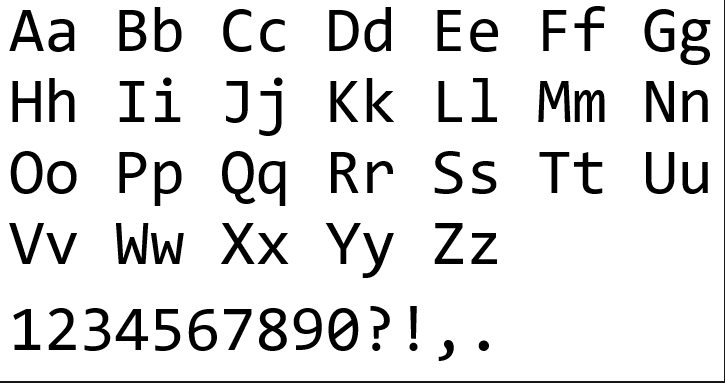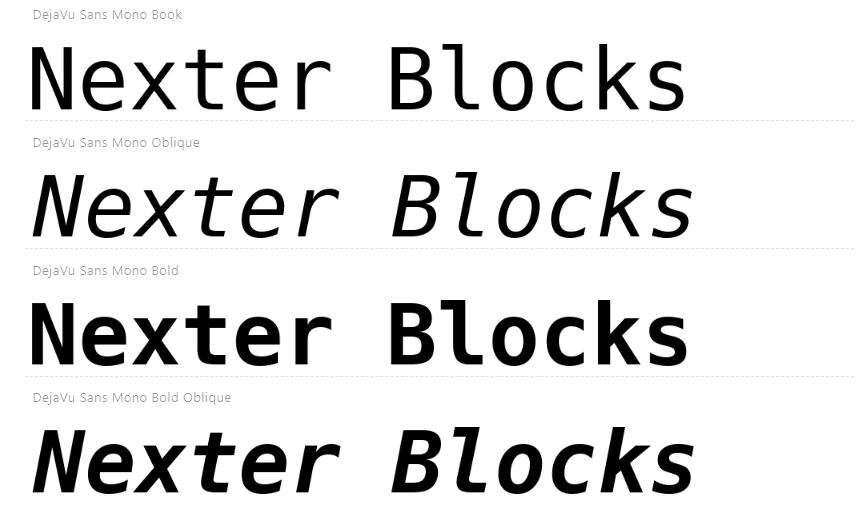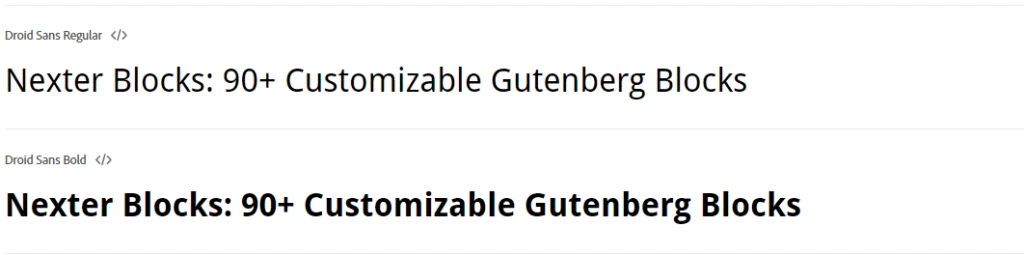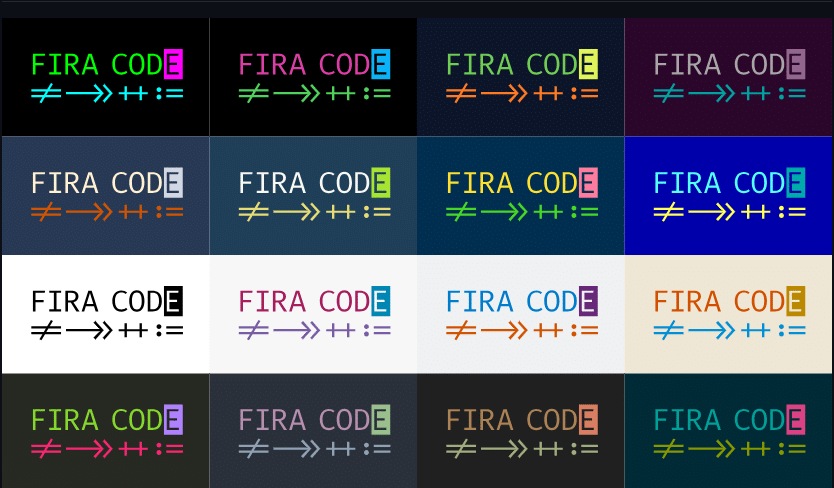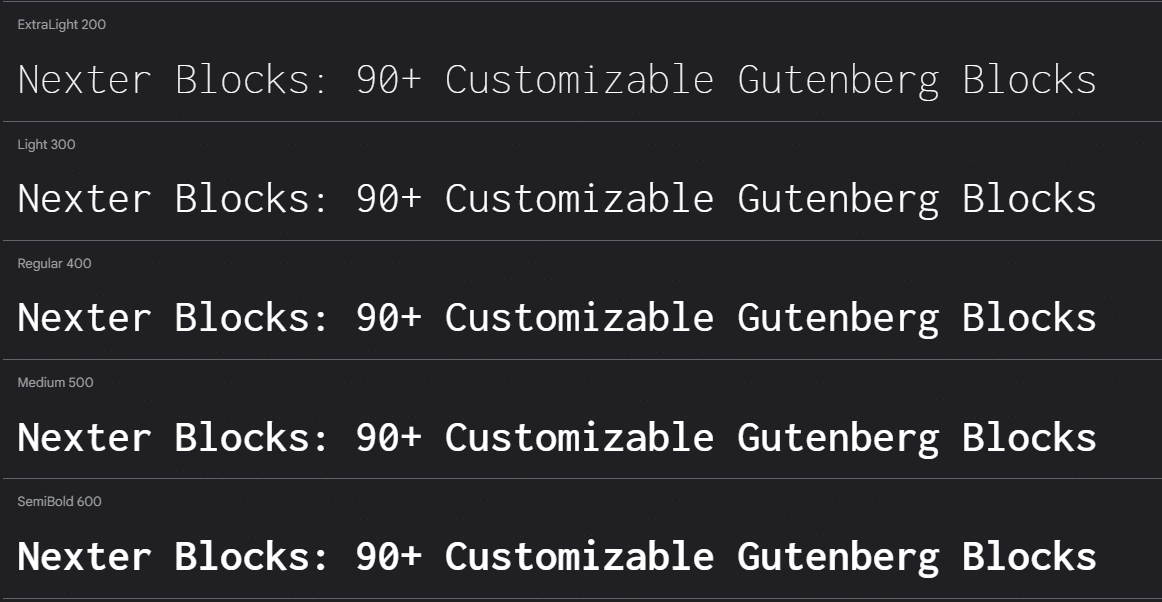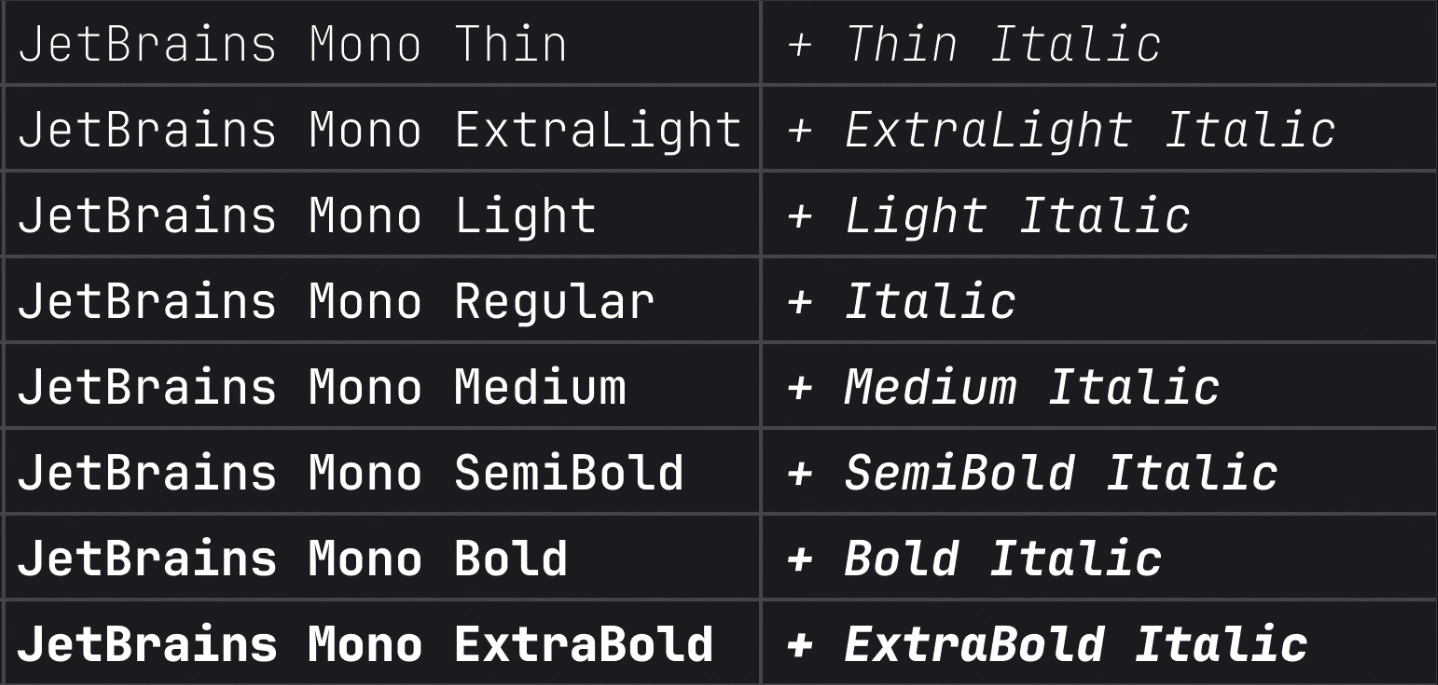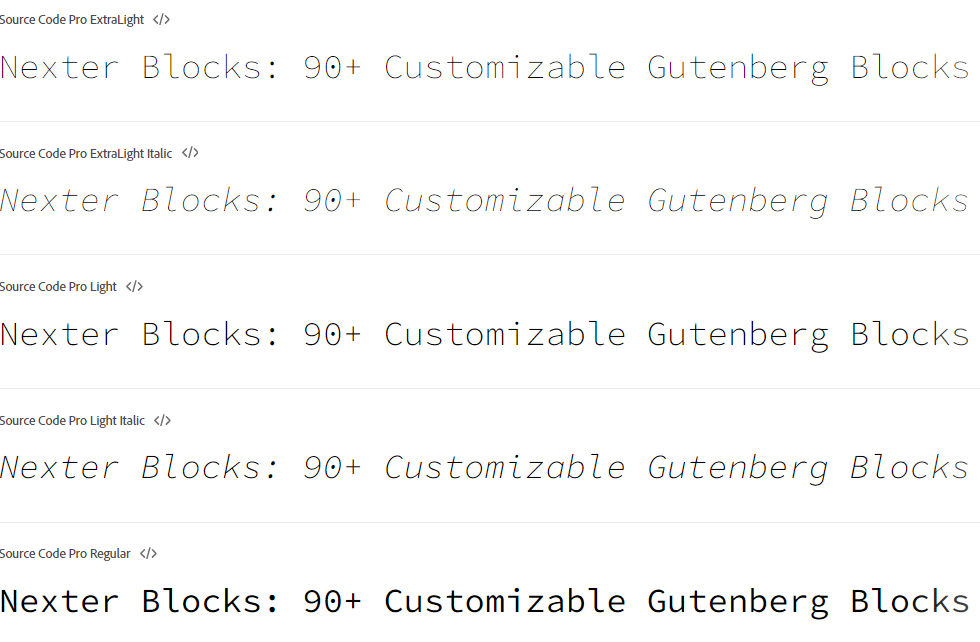
# 10 Best Programming Fonts for Developers [2026]
## Key Takeaways
- Fira Code, a free programming font, features extensive ligature support and is ideal for developers using symbol-heavy languages like JavaScript and Python.
- JetBrains Mono, the default font in JetBrains IDEs, reduces eye fatigue with taller x-heights and increased letter-spacing, supporting 8 weights and extensive ligatures.
- Source Code Pro, Adobe's open-source font, emphasizes character disambiguation without ligatures, making it suitable for Python and Ruby developers.
- Deja Vu Sans Mono offers broad Unicode support and solid character disambiguation, making it a strong choice for Linux developers and terminal users.
- MonoLisa is a premium variable font that allows customization of weight and width, focusing on character disambiguation for professional developers.
The wrong font costs you more than comfort. It slows the time it takes your eye to scan from one line to the next, makes similar characters like `0` and `O` harder to separate, and adds low-level cognitive load to every hour of coding. Multiply that across a full workday and the difference becomes measurable in how quickly you spot bugs.
Programming fonts are monospaced typefaces built specifically for reading and writing code. Unlike the variable-width fonts used in documents or browsers, every character in a monospaced font occupies the same horizontal space, keeping your code aligned and visually consistent across editors and screen sizes.
As of 2026, the developer community has converged on a short list of fonts that genuinely improve daily coding. This guide covers 10 of the best programming fonts for developers, including free and open-source picks, what each one does well, where to download them, and which editor each fits best.
## What is a Programming Font?
Programming fonts are monospaced or fixed-width fonts designed specifically for reading and writing code. Unlike standard document fonts where character widths vary, every character in a programming font occupies the same horizontal space. This uniform spacing keeps code columns aligned and makes it easier to scan indentation, brackets, and operators at a glance.
Most programming fonts also include optimized symbols for characters that frequently cause confusion in code: a dotted zero to distinguish it from the letter O, clear differences between lowercase l, the number 1, and uppercase I, and distinct comma and period weights so punctuation reads cleanly at small sizes.
### What Are Monospace Fonts?
Monospace fonts allocate a fixed amount of horizontal space to every character, regardless of its natural width. A lowercase "i" takes up exactly as much room as a capital "W." This fixed grid makes vertical alignment predictable, which is essential when reading deeply indented code, comparing variable names across lines, or spotting mismatched brackets in a long function.
### Why Coding Fonts Reduce Eye Strain
Standard document fonts were not designed for hours of reading on backlit screens. Programming fonts address this with larger x-heights that keep lowercase letters more open, increased letter-spacing that reduces crowding in dense lines, and heavier stroke weights that stay crisp at the small sizes developers typically prefer.
Fonts with ligature support take this further. Ligatures replace common multi-character sequences like `!=` or `=>` with a single unified symbol. The underlying code remains unchanged, but your eye processes the visual with less effort. Over a long session, that reduction in parsing effort adds up.
## What Makes a Good Programming Font?
Not every monospaced font is built the same way. When evaluating a coding font, these five criteria matter most:
- **Monospacing:** Every character must occupy the same fixed width so code alignment stays predictable across all screen widths and zoom levels.
- **Character disambiguation:** The font must make similar-looking characters clearly different. Zero vs O, 1 vs l vs I, and colon vs semicolon are the most critical pairs. A single misread character can introduce a hard-to-find bug.
- **Ligature support:** Ligatures merge common multi-character operators like `!=`, `->`, `=>`, and `===` into single glyphs. They are optional in most editors but reduce visual noise for developers who work in arrow-heavy or operator-dense languages.
- **Screen rendering and anti-aliasing:** A good coding font looks sharp at 12pt and 14pt on standard 1080p and retina displays. Poor rendering introduces fuzziness that adds up to eye fatigue over a long session.
### Are programming fonts with ligatures actually better?
Ligatures are personal preference, not a universal improvement. Developers who work in languages with frequent multi-character operators (`=>`, `!=`, `->`, `===`) find ligatures reduce visual noise and make code faster to scan. Critics argue ligatures obscure the underlying characters and can confuse beginners. Fira Code and JetBrains Mono both allow ligatures to be disabled in editor settings, so you can test both modes before committing to a choice.